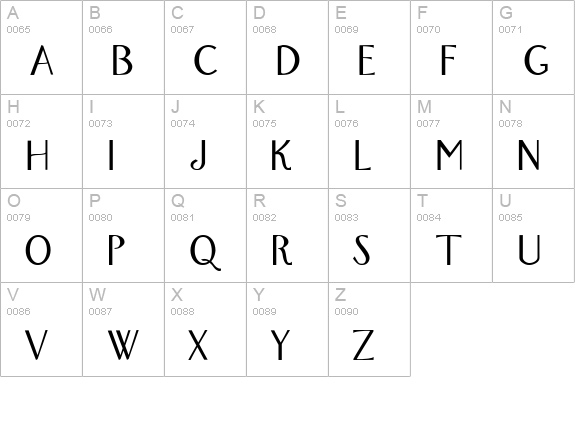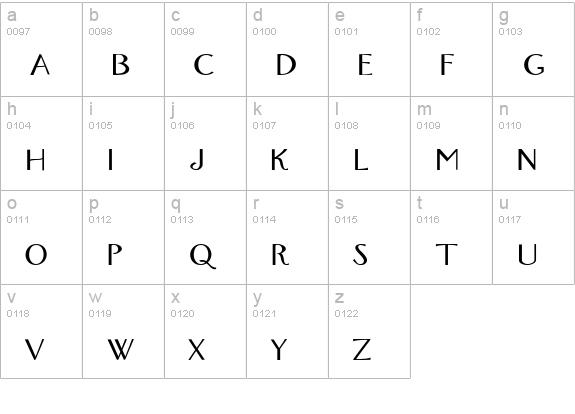
Orlando Font Details
Orlando font is a modern and stylish typeface that exudes elegance and sophistication. With its clean lines and sleek curves, Orlando is perfect for a wide range of design projects, from branding to packaging to web design. This versatile font is sure to make your text pop and stand out from the crowd. The best part about Orlando font is that it is completely free to download at FontsMarket.com. This means you can access this stunning typeface without any cost, making it a valuable addition to your font library. Whether you are a seasoned designer or just starting out, Orlando font is a must-have for anyone looking to elevate their projects with a touch of class and style. Download Orlando font today and take your designs to the next level!